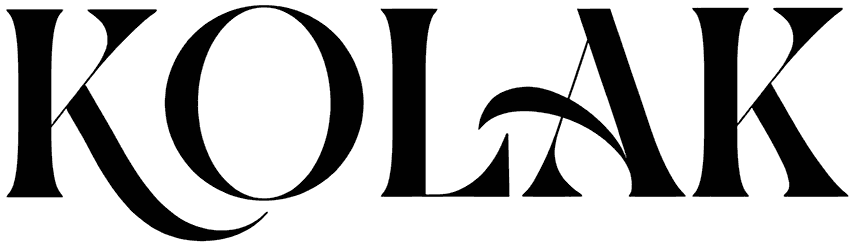
Kolak Font
Introduce your new brand to the market and take everyone’s notice with the highly refined look of Kolak. The visual interest it offers as a ligature font to your lettering is quite impressive.
You can always count on our elegant fonts to be just as attractive as Kolak and lend themselves well to your fashion brand logos, magazine titles, beauty salon signs, and names of furniture stores. You’ve never had a better chance of scoring with the clients than with Kolak.